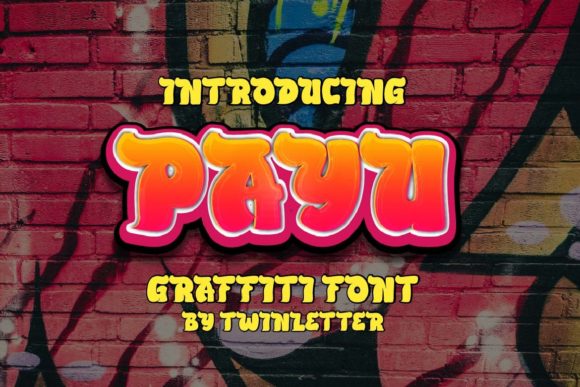
Prepare to be mesmerized by Payu Font, the graffiti-inspired display font that screams street art! With its bold and captivating presence, Payu is ready to transform your designs into masterpieces. Unleash your creativity and let Payu take your ideas to the next level.
Step into the world of Payu Font and discover a universe of possibilities. Its unique style is perfect for those who dare to be different and make a statement. Whether you're designing t-shirts, sportswear, logos, advertisements, or clothing, Payu is the ultimate choice for adding a touch of urban flair to your work.
With Payu Font, you'll never settle for ordinary. Its bold and striking characters demand attention, ensuring your messages stand out from the crowd. Harness the power of Payu to create designs that captivate and inspire.
Join the creative revolution and download Payu Font today. Let your imagination run wild as you explore the endless possibilities it offers. From eye-catching logos to streetwear designs that turn heads, Payu is your gateway to artistic freedom.
Don't miss out on the chance to make a lasting impression. Embrace the urban art aesthetic and let Payu Font elevate your designs to new heights. Download now and unlock the potential for truly remarkable creations.